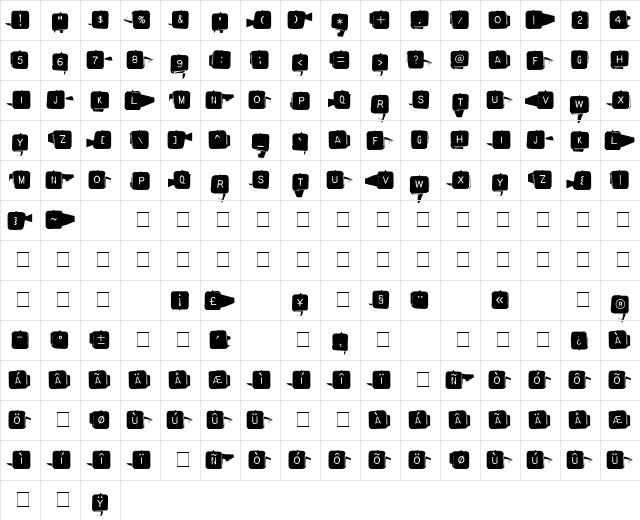
BackspacerSquare Regular Font Preview
BackspacerSquare Regular
BackspacerSquare Regular Font Details
Design Context for BackspacerSquare Typeface
BackspacerSquare is a composed and adaptable typeface that performs quietly and consistently across a wide range of design contexts.